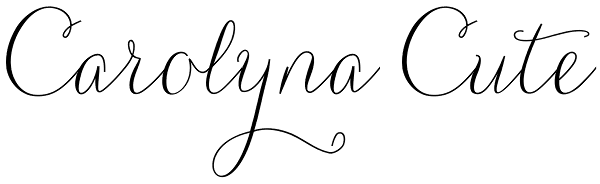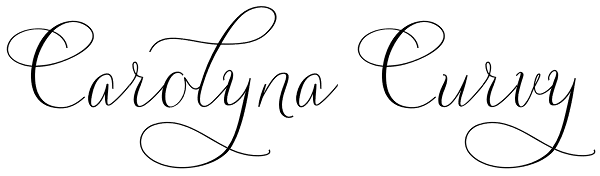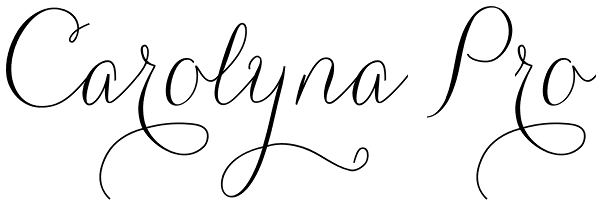
Carolyna
Carolyna is an elegant, yet whimsically handwritten calligraphy font that was created with readability in mind. It uses open-type features to assist with letter flow and to give each creation that modern, hand-lettered touch. With over 1000...
Carolyna Cute
Carolyna Curvy
Carolyna Pro